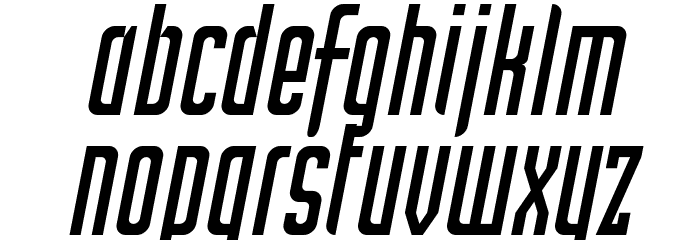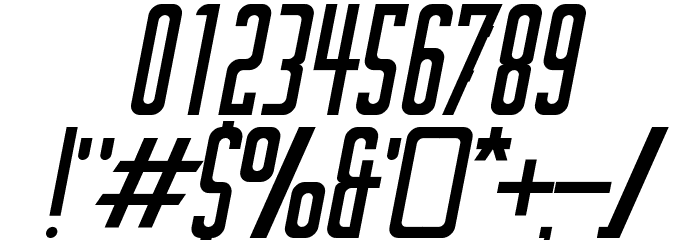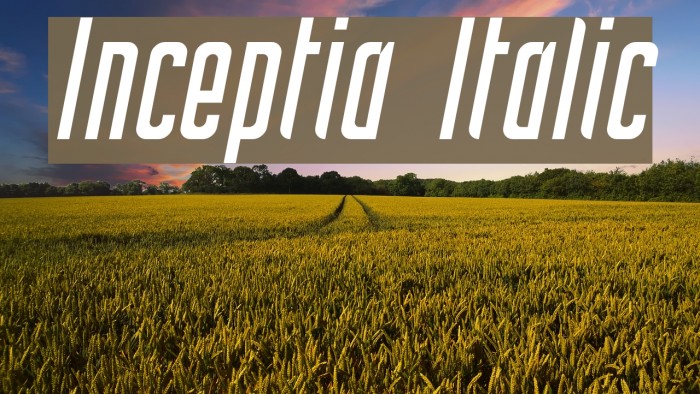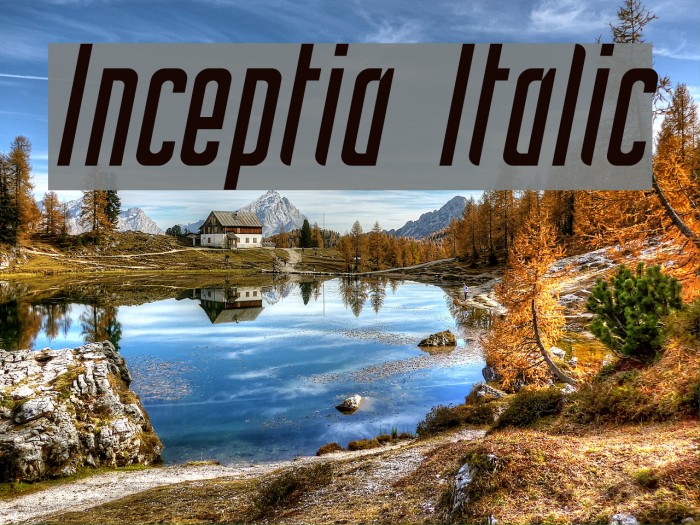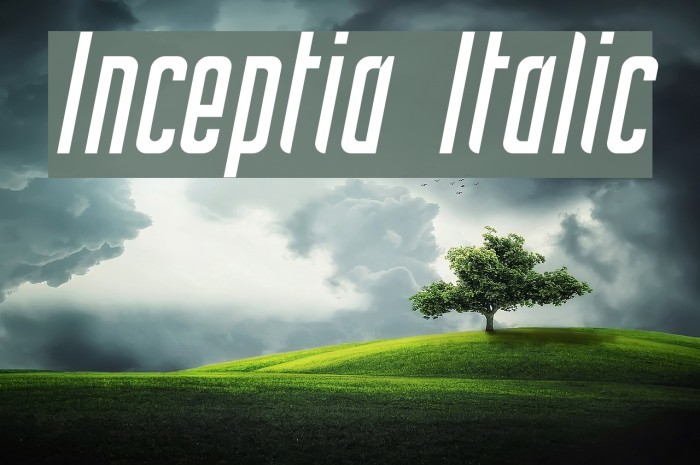
Inceptia Italic Font
This font features a dynamic and modern italic style with a strong forward slant, giving it a sense of motion and energy. The characters are tall and narrow, contributing to a condensed appearance that maximizes vertical space. The strokes are consistent in thickness, providing a uniform look across all characters. The font includes a full set of uppercase and lowercase letters, numbers, and a variety of special characters, making it versatile for different design needs. Its sleek and contemporary design is ideal for projects that require a bold and assertive typeface.
A modern, italic, and condensed font with a dynamic and energetic style.
- Proposed Projects: Ideal for sports branding, dynamic posters, modern advertisements, and tech-related designs.
- Character Spacing: Tight